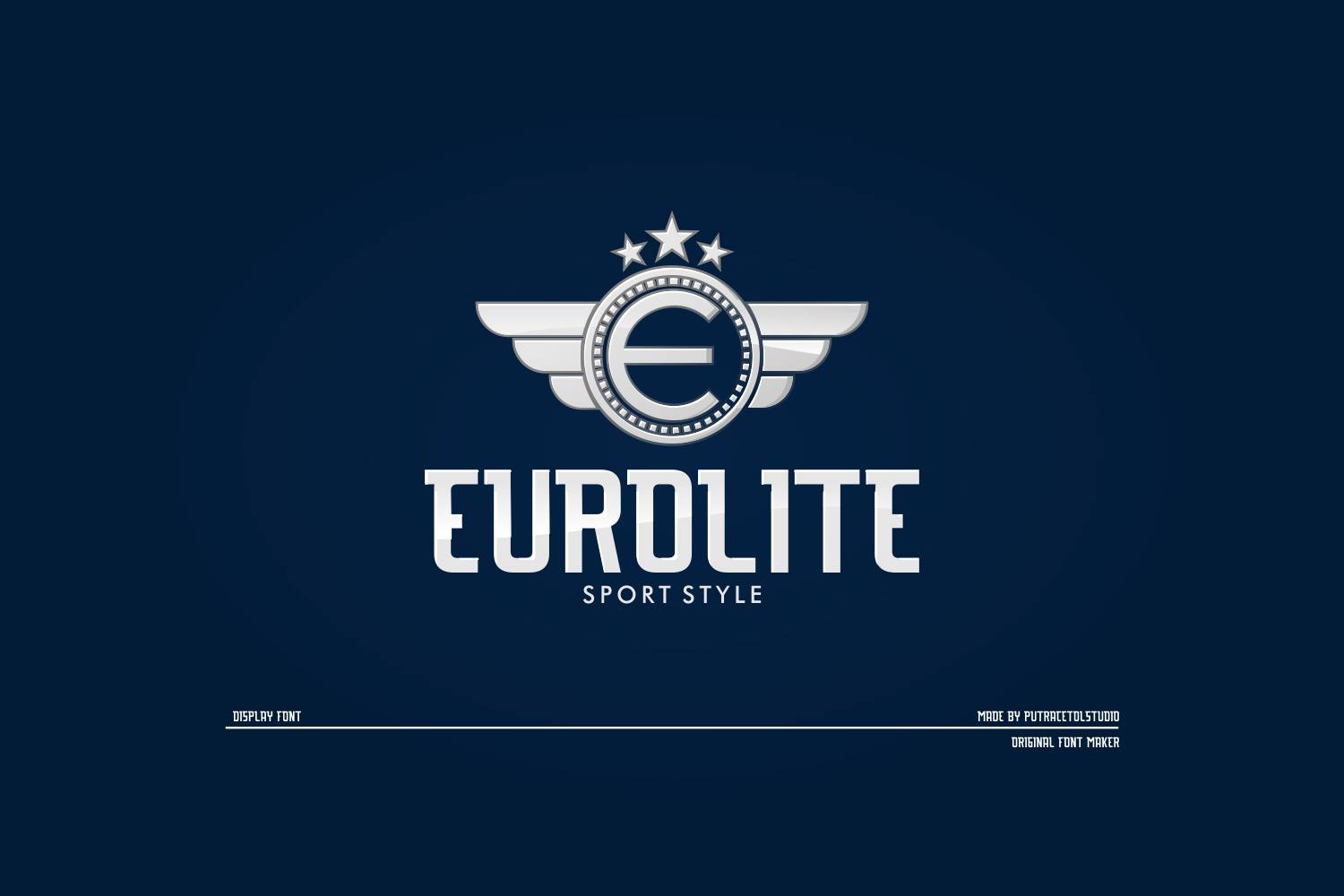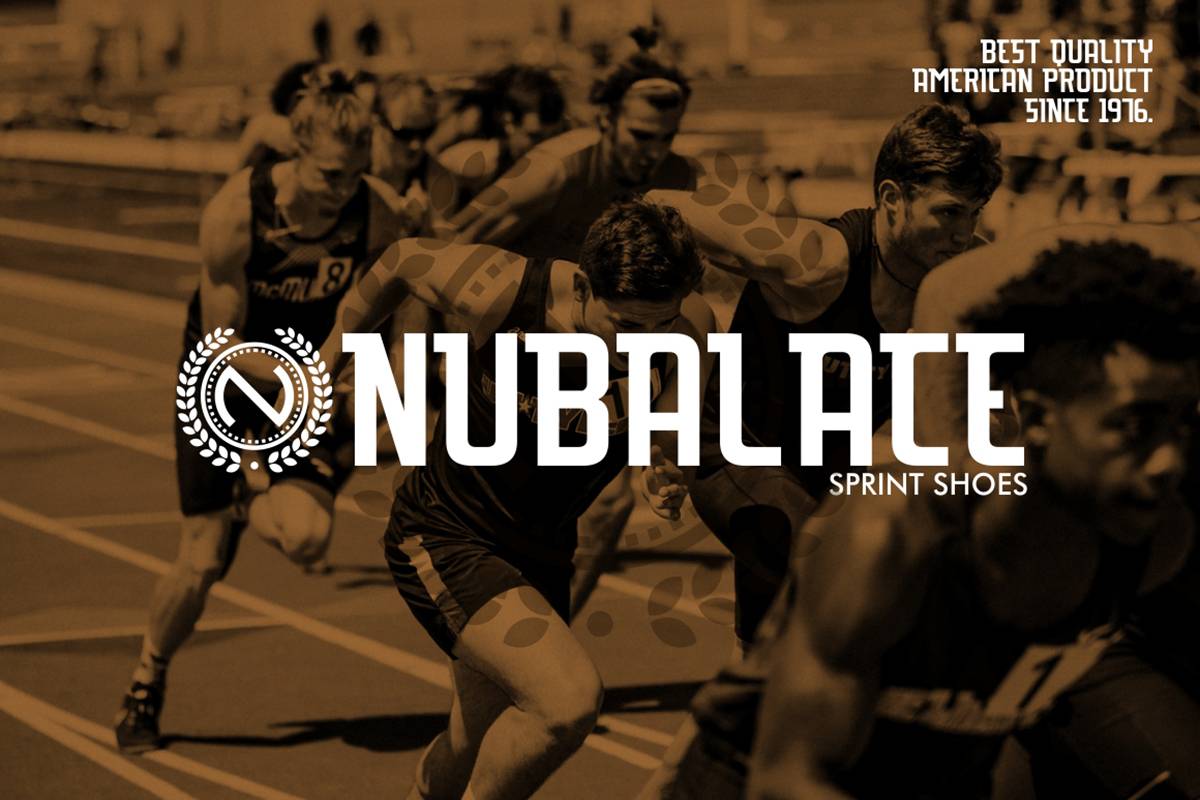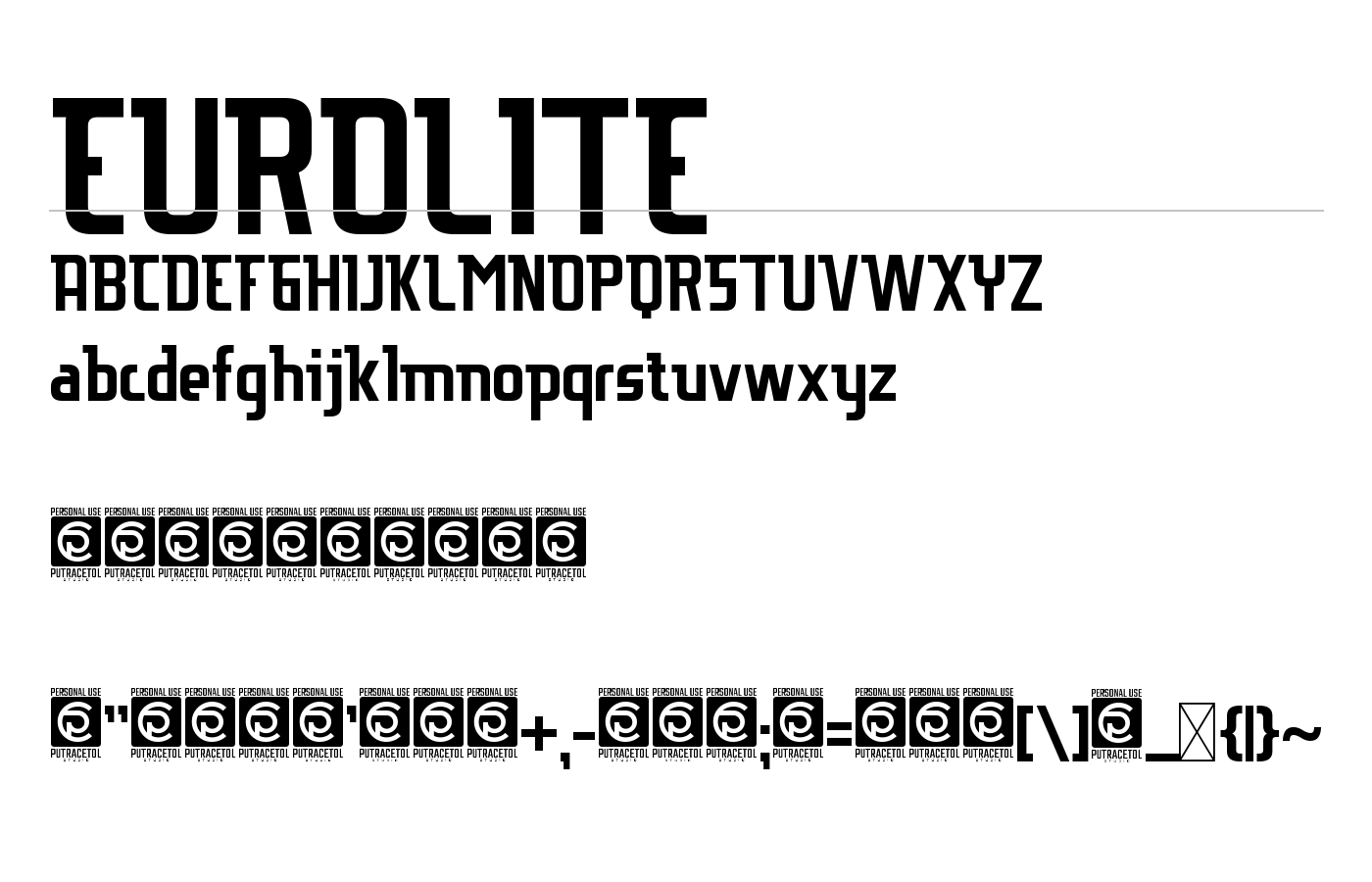
Eurolite is a bold, condensed sans-serif font with a modern, industrial feel. Its tall, narrow letterforms feature consistent stroke widths and squared edges, giving it a strong and structured appearance ideal for headlines, logos, and branding that require a confident, urban style. This font works well in projects needing a distinctive, clean, and assertive visual identity, especially where space is limited but impact is essential.
Eurolite Font
About Eurolite Font
| Font family | Eurolite Font |